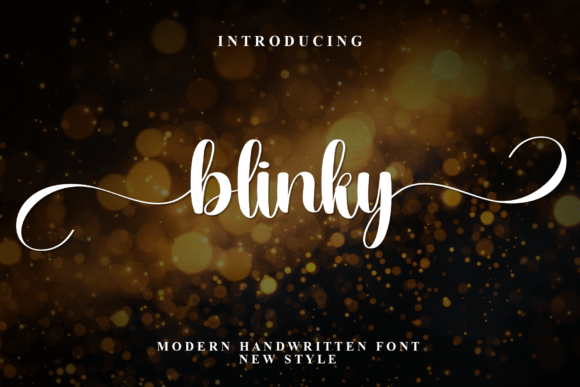
Introducing Blinky Font: The Charmingly Authentic Handwritten Display Font
Are you tired of using the same old fonts in your designs? Look no further! We’re excited to introduce Blinky Font, a charmingly authentic handwritten display font that’s sure to add a touch of warmth and congeniality to your creative projects. This splendidly cute and vibrant font is perfect for designers and crafters who want to infuse a dash of fun-loving spirit into their work.
A Delightful Aesthetic
Blinky Font boasts a delightful aesthetic that’s perfect for wedding invitations, greeting cards, or any design seeking that joyful touch to truly come alive. Its sweet allure will undeniably leave an imprint on your next creative endeavor. With Blinky Font, you can add a personal touch to your designs that will make them stand out from the crowd.
Whether you’re a designer, crafter, or DIY enthusiast, Blinky Font is the perfect addition to your font collection. Its unique blend of elegance and playfulness makes it suitable for a wide range of creative projects, including:
What Sets Blinky Font Apart
So, what makes Blinky Font so special? Here are just a few features that set it apart from other fonts:
- Handwritten authenticity: Blinky Font is a genuine handwritten font, crafted with love and care to give your designs a personal touch.
- Warm and congenial: This font exudes warmth and congeniality, making it perfect for designs that require a friendly and approachable tone.
- Vibrant and playful: Blinky Font is a vibrant and playful font that’s sure to add a dash of fun-loving spirit to your designs.
- Elegant and refined: Despite its playful nature, Blinky Font also boasts an elegant and refined aesthetic that’s perfect for more formal designs.
Tips for Using Blinky Font
Here are a few tips for getting the most out of Blinky Font:
- Use it as a headline font: Blinky Font is perfect for headlines and titles, where its playful and vibrant nature can really shine.
- Pair it with contrasting fonts: For body text, try pairing Blinky Font with a contrasting font to create visual interest and hierarchy.
- Experiment with colors: Blinky Font looks great in a range of colors, so don’t be afraid to experiment and find the perfect hue for your design.
In conclusion, Blinky Font is a charmingly authentic handwritten display font that’s sure to add a touch of warmth and congeniality to your creative projects. With its delightful aesthetic and unique blend of elegance and playfulness, it’s the perfect addition to any designer’s or crafter’s font collection. So why not give Blinky Font a try today and experience the joy of creating with this wonderful font?
Whether you’re a seasoned designer or a crafty DIY enthusiast, Blinky Font is sure to inspire your next creative endeavor. So go ahead, get creative, and let Blinky Font bring a smile to your face and a touch of joy to your designs!